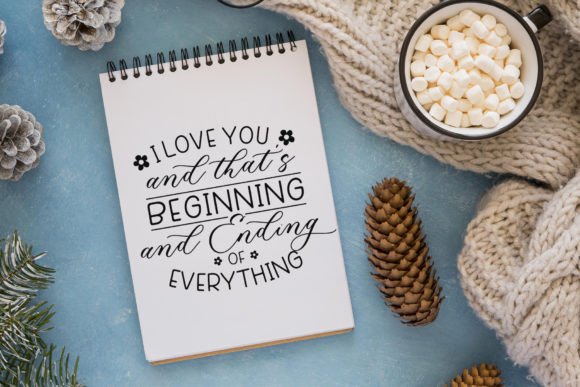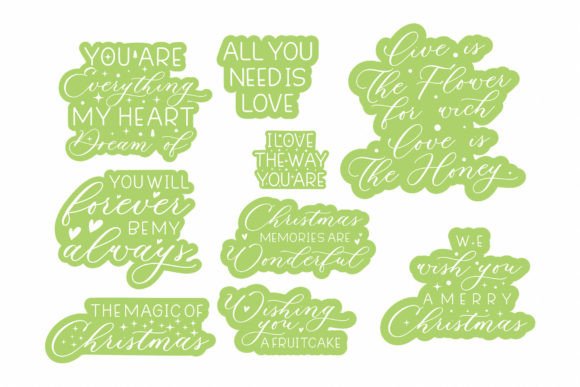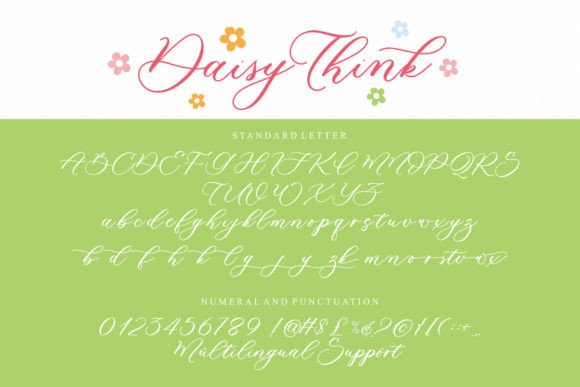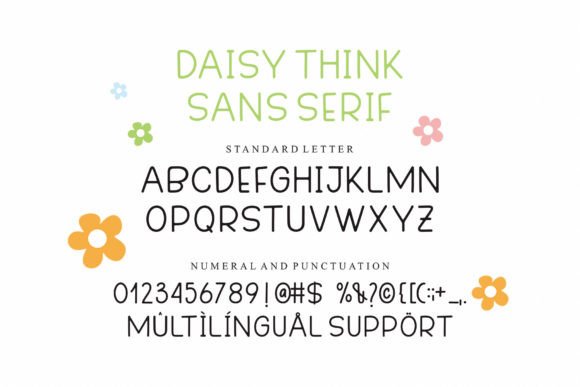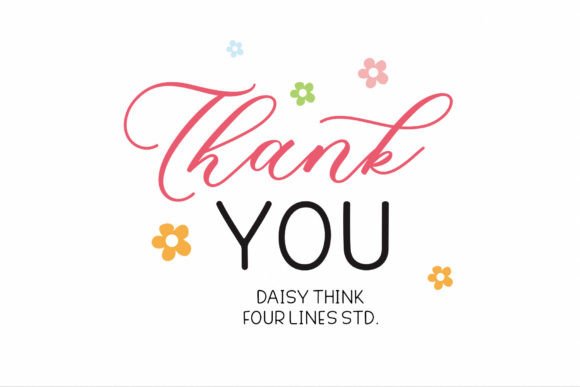
Introduction to Daisy Think Font
You know that feeling when you’re in the middle of a creative project and you just can’t find the perfect font to bring it all together? You’ve scrolled through countless options, but nothing seems to capture the essence of your design. That’s where the Daisy Think Font comes in – a beautifully crafted duo of script and sans serif fonts designed to complement each other perfectly.
As a designer, you understand the importance of having high-quality design resources at your fingertips. With the Daisy Think Font, you’ll have the freedom to add a chic and cheery touch to your crafts, whether you’re working on a digital project or creating something by hand. The best part? The Daisy Think Font is available for free download, making it an accessible addition to any design arsenal.
Whether you’re a seasoned pro or just starting out, the Daisy Think Font is a valuable addition to your design toolkit. Its versatility and high-quality design make it perfect for a wide range of creative projects, from invitations and greeting cards to digital graphics and more.
Key Features of Daisy Think Font
- Unique characteristics include a modern and elegant aesthetic, making it perfect for creative projects requiring a touch of sophistication.
Honest Review: Daisy Think Font
I recently had the chance to work with the Daisy Think Font, and I’m excited to share my thoughts on this design resource.
- ✨ The high quality of the font is impressive, with crisp lines and a beautiful texture.
- ✨ The transparent background option makes it easy to use the font on any color background.
- ⚠️ The font is a bit limited in terms of customization options, which might be a drawback for designers who like to get creative.
Overall, I’m impressed with the Daisy Think Font. It’s a great addition to any designer’s toolkit, and I would definitely recommend it for creative projects. The high quality and transparent background options make it a versatile and easy-to-use font.